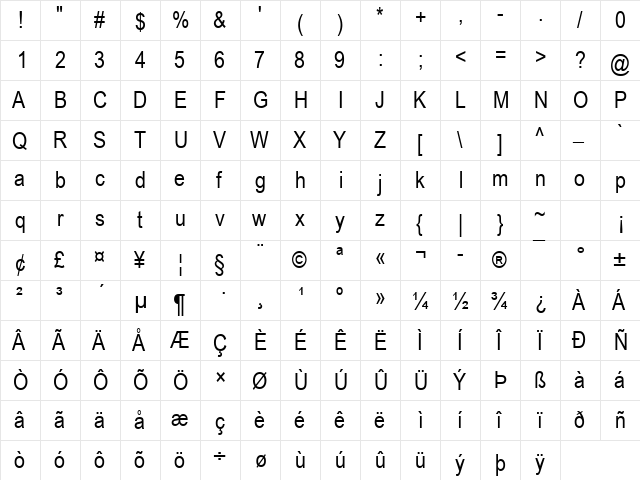
Arial Narrow Regular Font Preview
Arial Narrow Regular
Arial Narrow Regular Font Details
| Foundry | Monotype Typography, Inc. |
| Designer | Robin Nicholas, Patricia Saunders |
Design Context for Arial Narrow Typeface
Arial Narrow takes a measured approach to typography — its balanced proportions and neutral character make it a reliable workhorse for both digital and print work. The condensed width makes it efficient for tight spaces without sacrificing legibility.